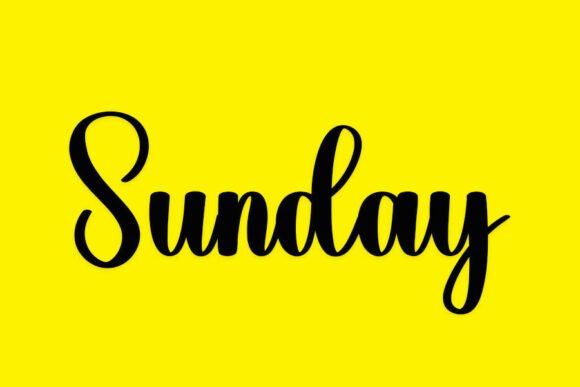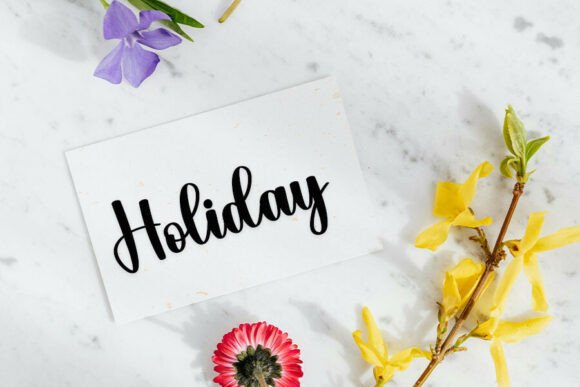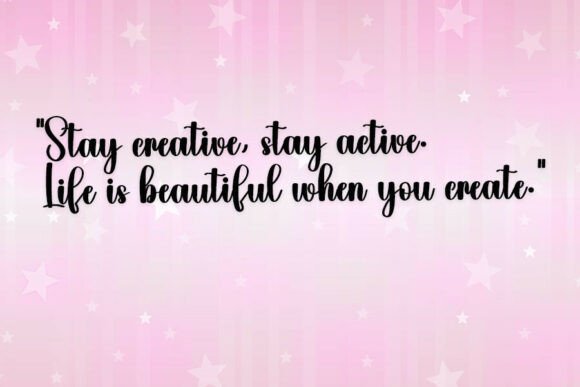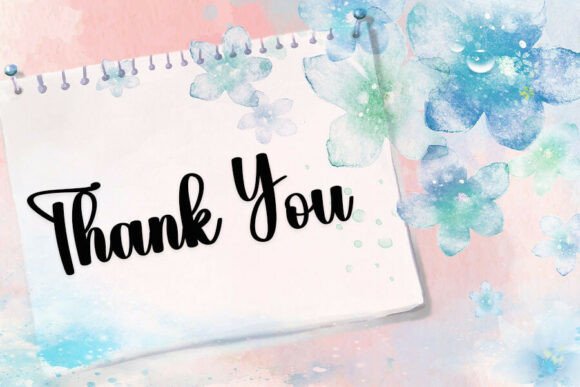
Cactus Font: The Perfect Addition to Your Design Arsenal
Are you tired of using the same old fonts in your designs? Look no further than the Cactus Font, a delicate handwritten font that’s sure to add a touch of cool and uniqueness to your projects. In this article, we’ll dive into the world of Cactus Font and explore its features, uses, and benefits for designers and crafters.
What is Cactus Font?
Cactus Font is a carefully crafted handwritten font that’s perfect for creating stunning designs. Its delicate and elegant lines make it an ideal choice for a wide range of projects, from letters and invitations to food products and titles. The font’s unique and quirky feel is sure to capture the attention of your audience and set your designs apart from the rest.
Features of Cactus Font
So, what makes Cactus Font so special? Here are just a few of its key features:
- Delicate Handwritten Style: Cactus Font boasts a beautiful, handwritten style that’s perfect for creating elegant and sophisticated designs.
- Unique and Quirky Feel: The font’s quirky feel is sure to add a touch of personality to your designs and make them stand out.
- Versatile: Cactus Font can be used for a wide range of projects, from letters and invitations to food products and titles.
- Easily Readable: Despite its delicate style, Cactus Font is easily readable, making it perfect for body text and headings.
Uses of Cactus Font
So, what can you use Cactus Font for? The possibilities are endless! Here are just a few ideas to get you started:
- Invitations and Stationery: Cactus Font is perfect for creating beautiful invitations, stationery, and greeting cards.
- Food and Beverage Branding: The font’s quirky feel makes it an ideal choice for food and beverage branding, from restaurant menus to product labels.
- Titles and Headings: Cactus Font is perfect for creating stunning titles and headings for blogs, articles, and websites.
- Packaging and Labeling: The font’s unique feel makes it a great choice for packaging and labeling, from product packaging to stickers and decals.
Benefits of Using Cactus Font
So, why should you choose Cactus Font for your designs? Here are just a few benefits:
- Adds a Touch of Personality: Cactus Font’s unique feel is sure to add a touch of personality to your designs and make them stand out.
- Perfect for Creative Projects: The font’s quirky feel makes it perfect for creative projects, from art and craft to DIY and handmade.
- Easily Customizable: Cactus Font is easily customizable, making it perfect for creating unique and personalized designs.
- Supports Multiple Languages: The font supports multiple languages, making it a great choice for international designs.
Tips for Using Cactus Font
Here are a few tips for using Cactus Font in your designs:
- Use it for Headings and Titles: Cactus Font is perfect for creating stunning headings and titles.
- Pair it with Other Fonts: The font pairs well with other fonts, making it perfect for creating unique and interesting combinations.
- Experiment with Colors and Textures: Cactus Font looks great with a range of colors and textures, so don’t be afraid to experiment.
In conclusion, Cactus Font is a delicate handwritten font that’s perfect for adding a touch of cool and uniqueness to your designs. Its quirky feel, versatility, and readability make it an ideal choice for a wide range of projects, from letters and invitations to food products and titles. Whether you’re a designer, crafter, or DIY enthusiast, Cactus Font is sure to become a valuable addition to your design arsenal.